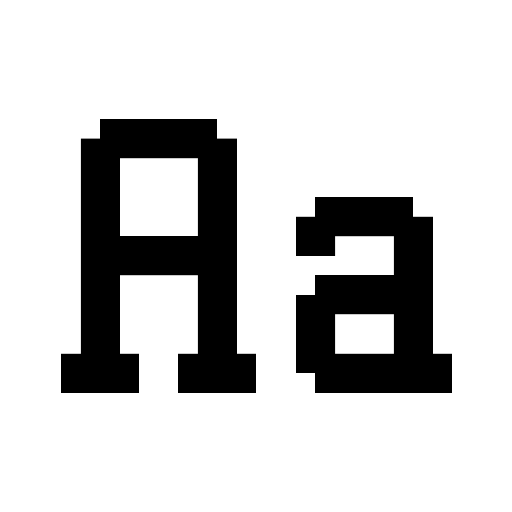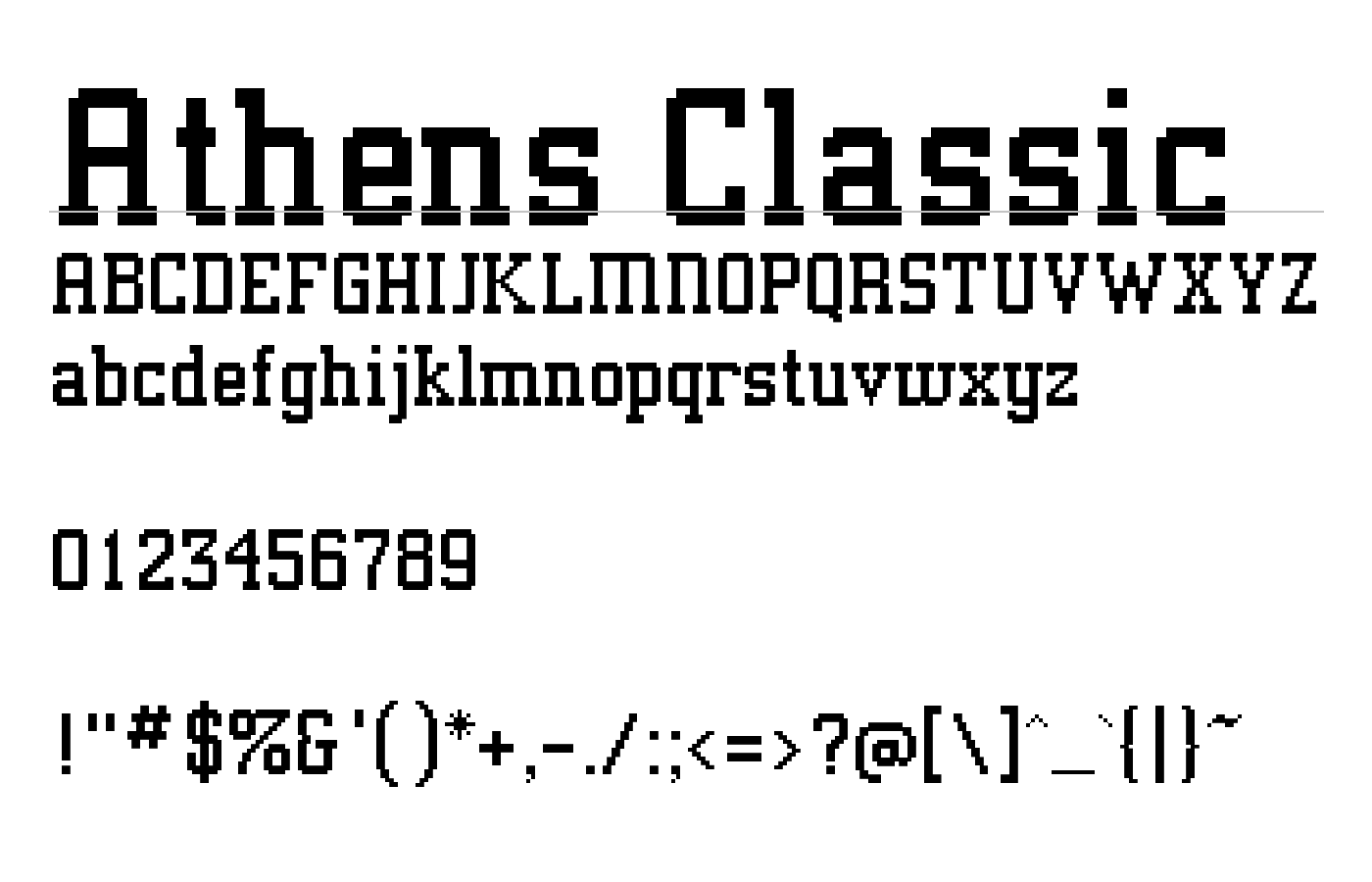
Athens Classic is a monospaced, slab serif font with a strong, blocky appearance that evokes a vintage, typewriter-like feel. Its consistent weight and squared serifs give it a sturdy, mechanical character, making it perfect for designs that want to convey reliability with a touch of retro charm. This font works well for coding environments, tech-inspired branding, or editorial content needing a classic yet bold personality.
Athens Classic Font
About Athens Classic Font